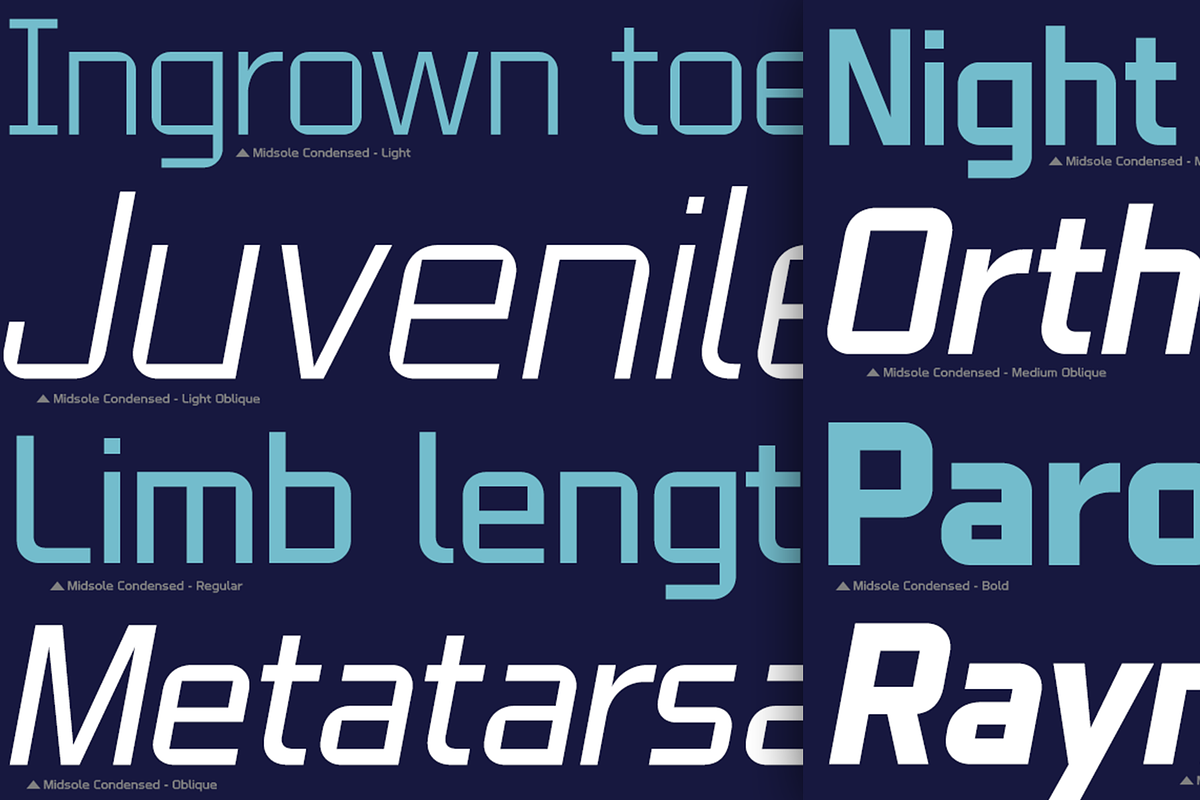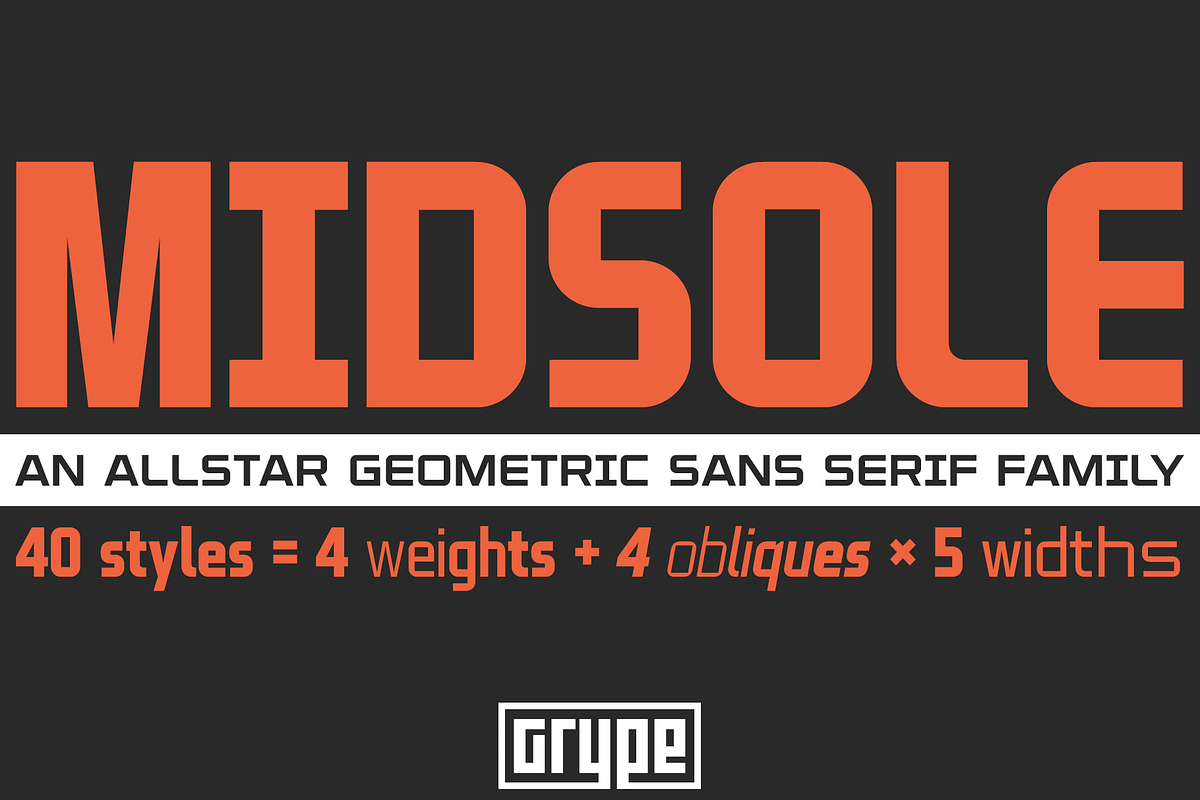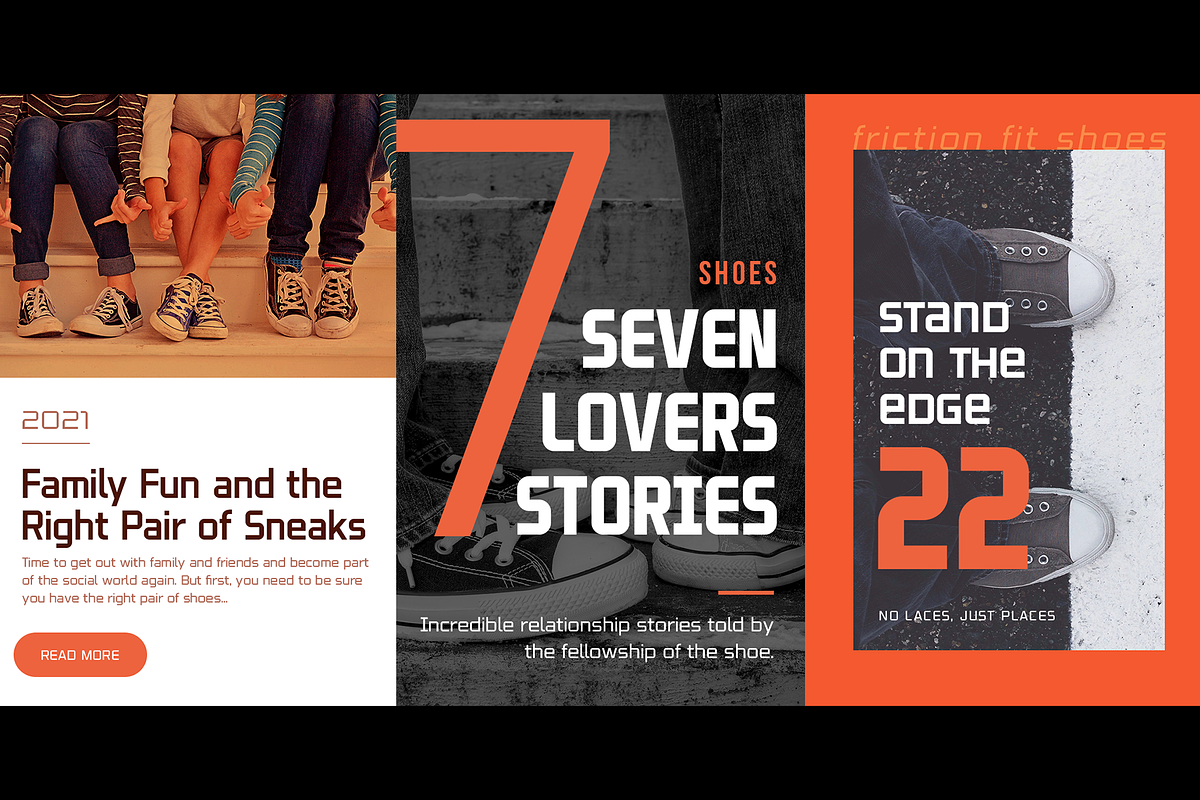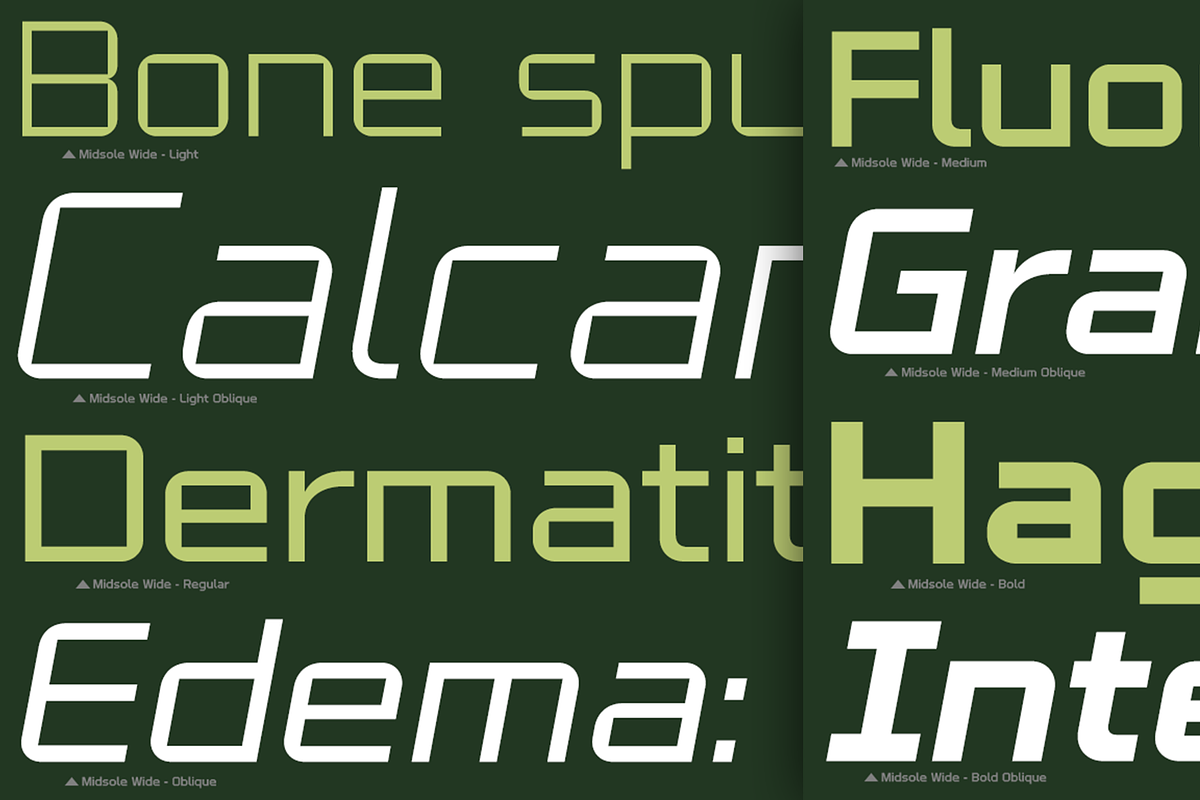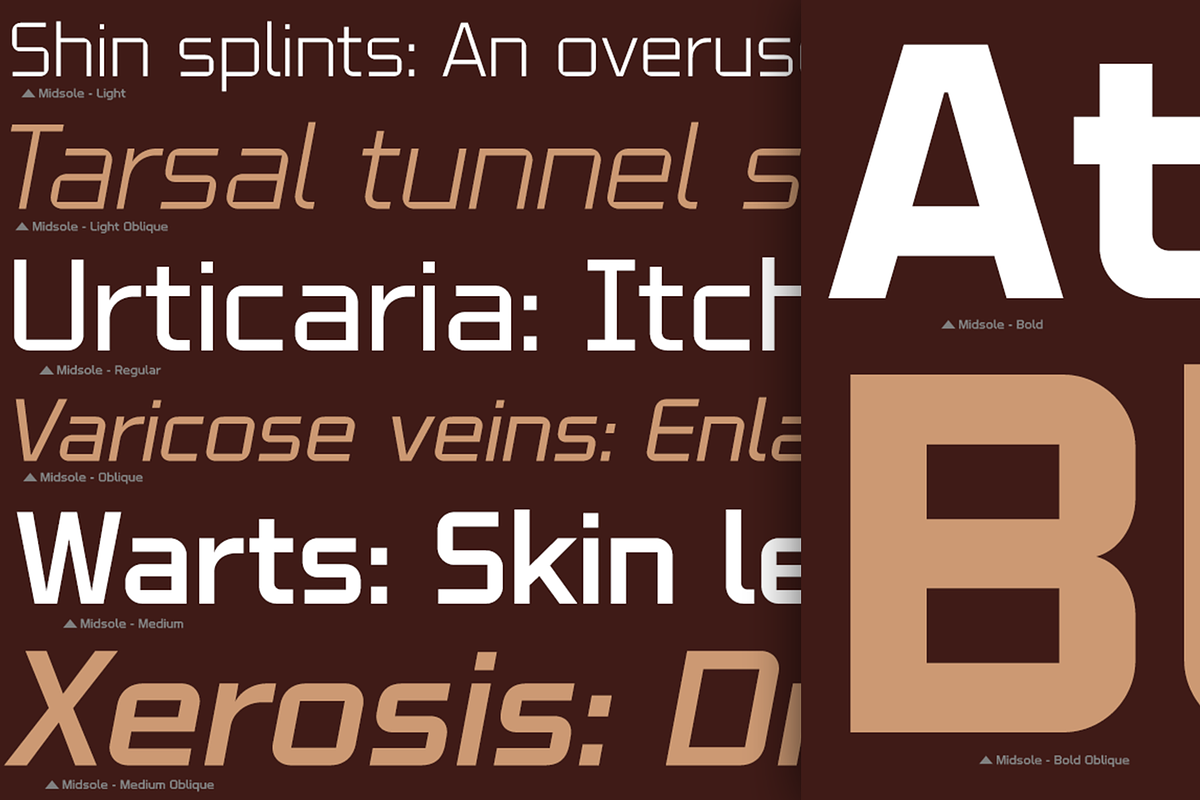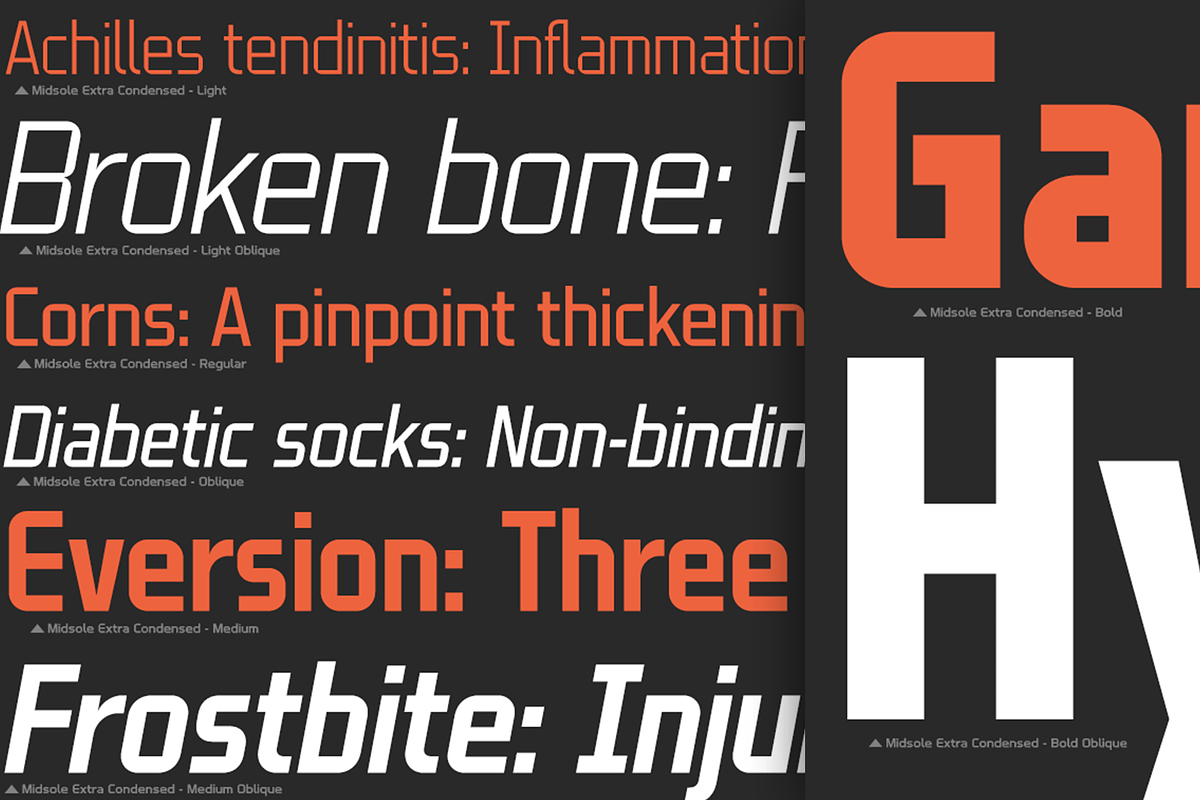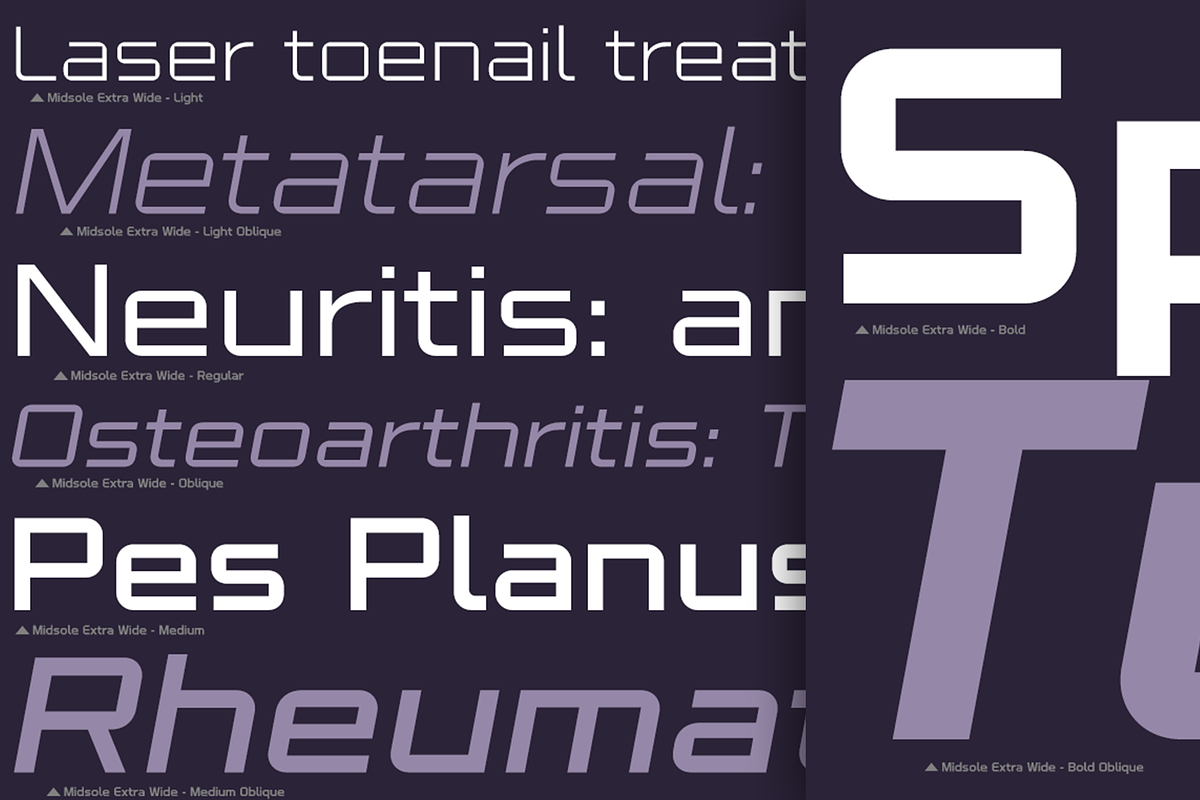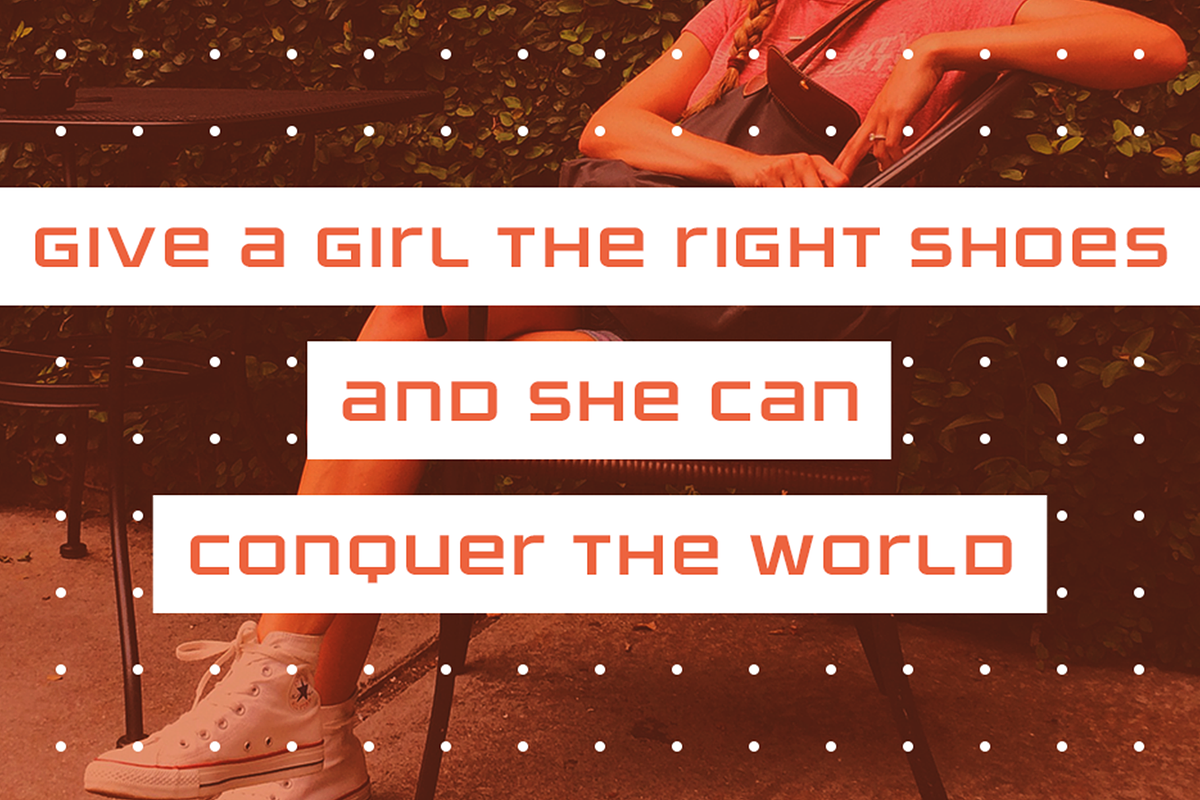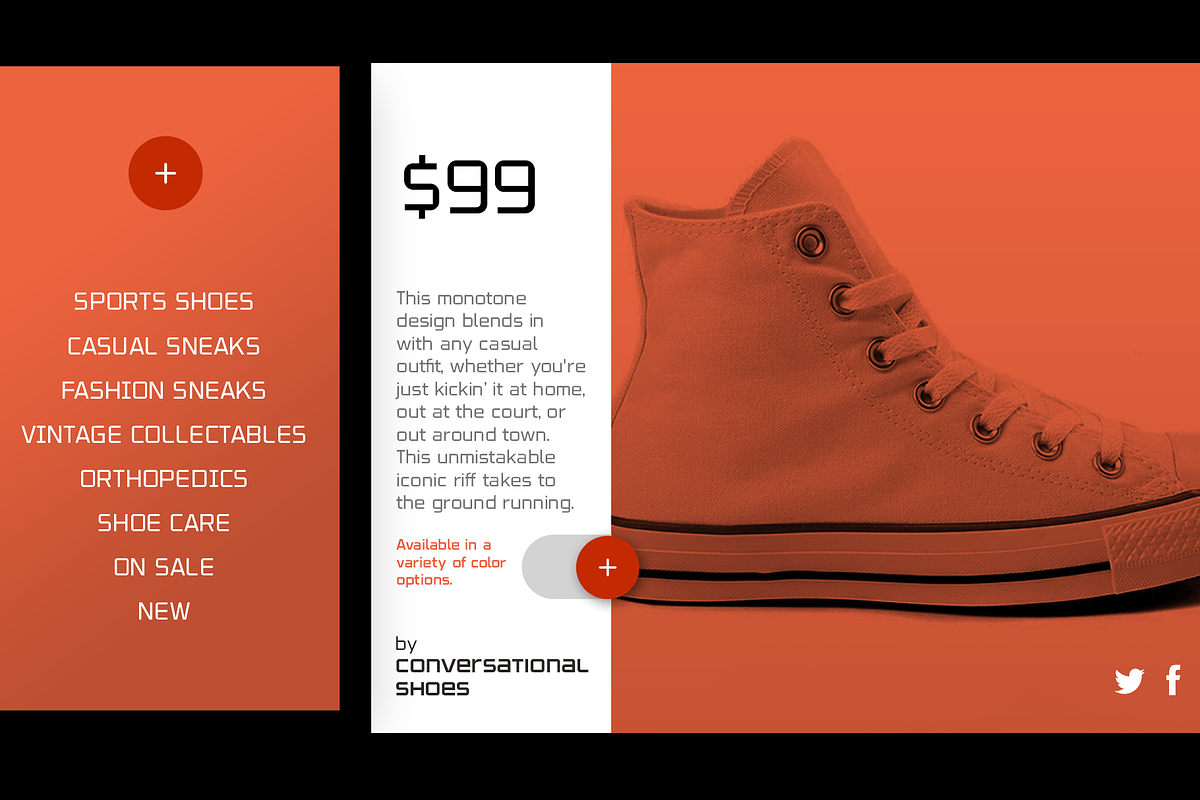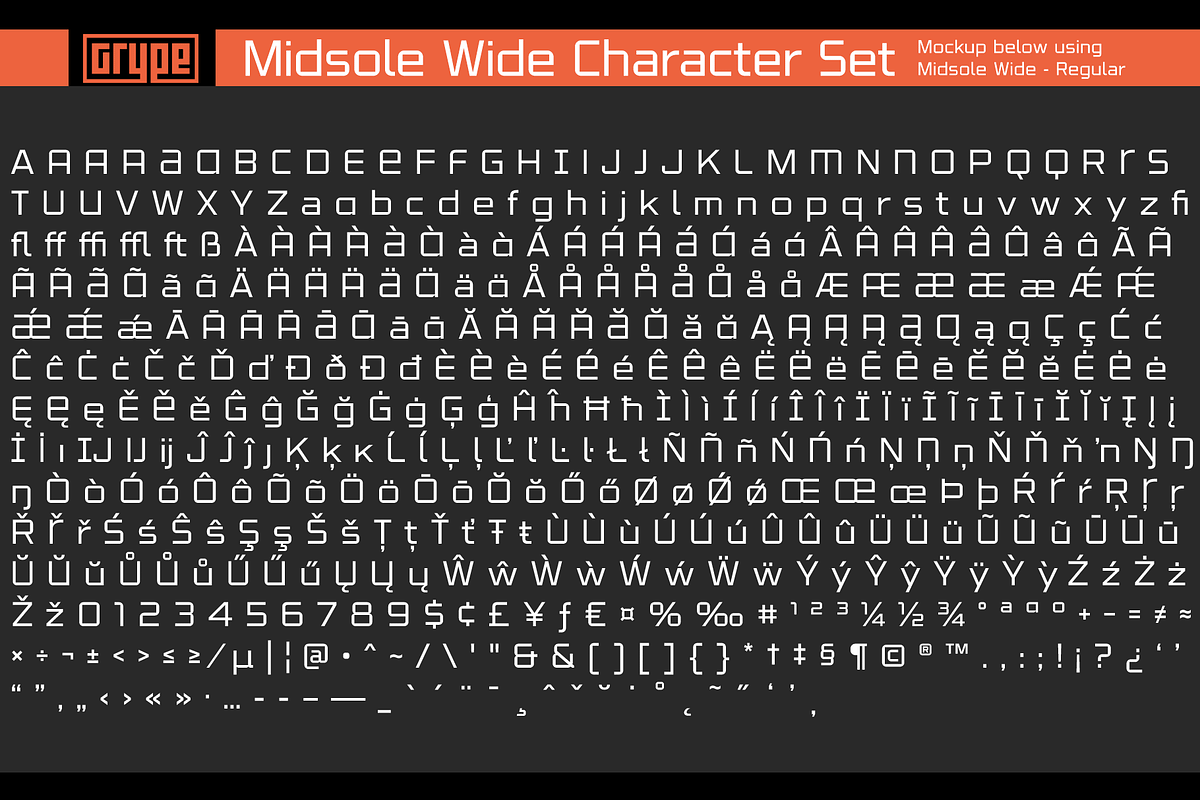
Midsole
Geometric/Technical style logotypes have been developed for car chrome labels since the early 1980’s, but automobile companies don't monopolize the style by any means. Shoe companies have a foothold in the geometric sans serif styles as well, and range from straightforward to full of techno styled play. Nonetheless, these logotypes all lack an expansive family which shows off all the logotypes are and what they "could" be and do. And that's where we come in. The Midsole Family finds its origin of inspiration in the CONVERSE shoe company logo, or an older version fo their logo, and from there expanded it into a 40 font family of weights, widths, and obliques.
Midsole pays homage to the styling of the earlier logotype, including unicase variations to match the original look, while further evolving beyond the brand inspiration to yield a family that pulls on modern and historical styles. It adopts a sturdy yet approachable and recognizable style with its uniform stroke forms and curves, and goes on to include a lowercase, numerals, and a comprehensive range of weights, creating a straightforward, uncompromising collection of typefaces that lend a solid foundation and a broad range of expression for designers.
489 glyphs per style - including Capitals, Lowercase, Numerals, Punctuation and an extensive character set that covers multilingual support of latin based languages. (see the 10th graphic for a preview of the characters included)
Stylistic Alternates - alternate characters and unicase variants for a less standardized text look.
4 weights in the family: Light, Regular, Medium & Bold. 4 obliques in the family, one for each weight: Light, Regular, Medium & Bold.